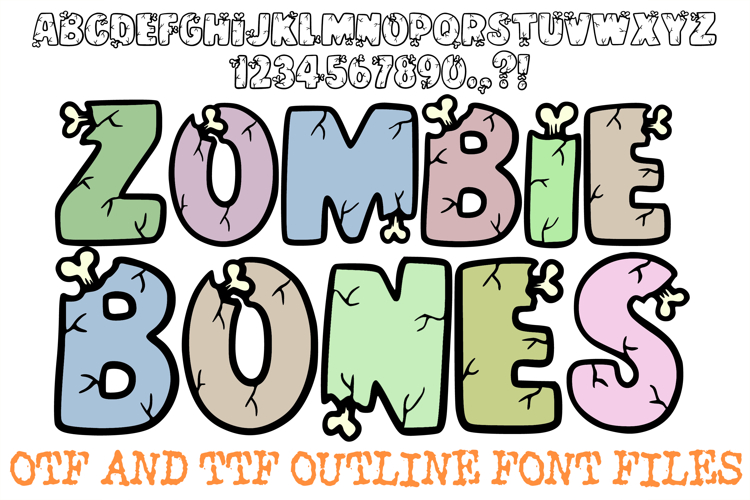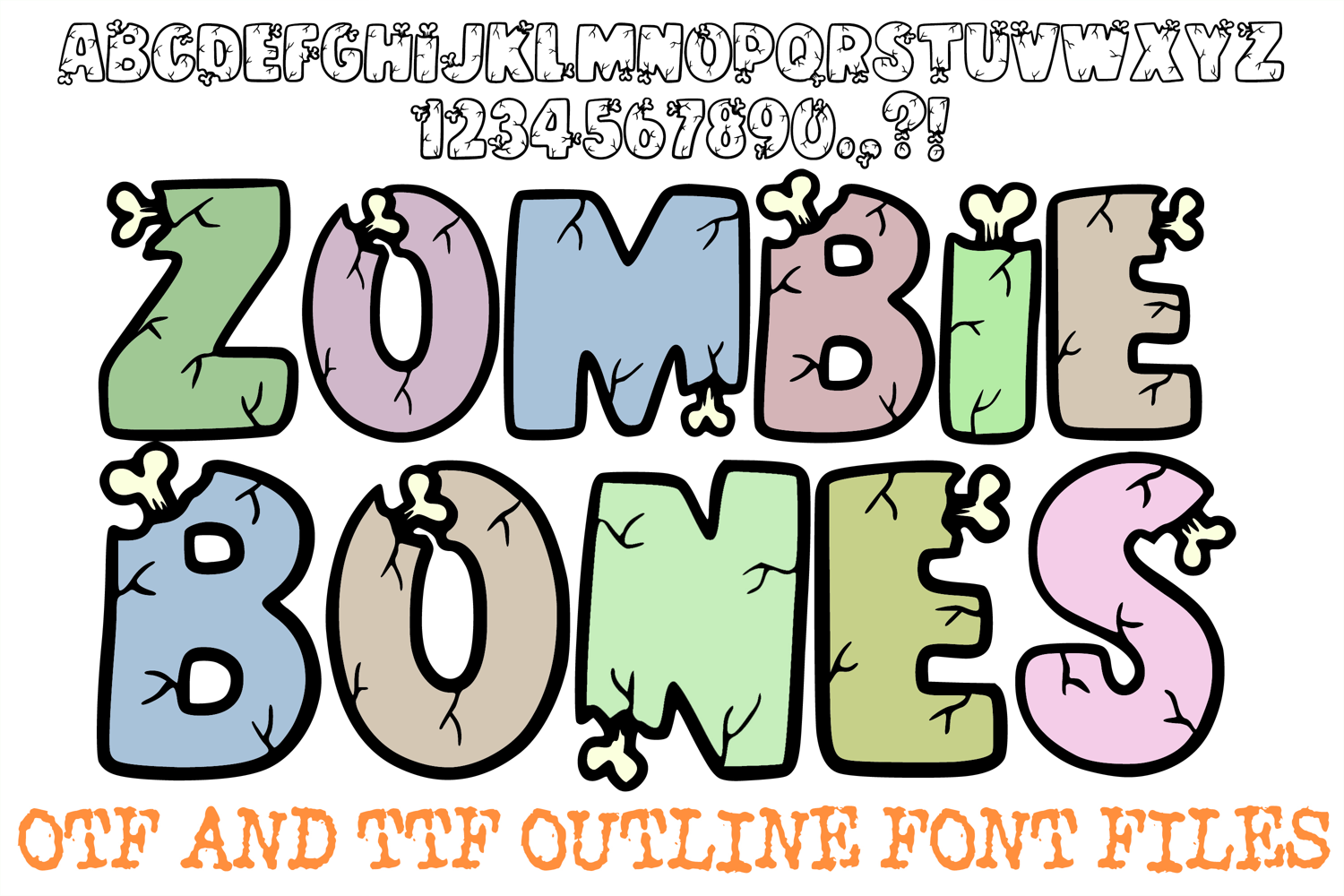
Zombie Bones Lettering Font Cartoon Halloween ABC OTF Type
The Zombie Bones Font is a playful yet macabre display typeface featuring thick, bubbly letterforms with small bone fragments protruding through the outlines. Characterized by "cracked" textures and a hand-drawn comic aesthetic, this font is an essential asset for designers working on Halloween party invitations, spooky children’s book titles, horror-themed sticker packs, and festive social media graphics.
The design creates a unique "undead" energy, as if bones are blooming from within the letters themselves. Whether you are building branding for a haunted attraction or designing seasonal apparel, this font provides a whimsical, "creepy-cute" vibe that is both legible and highly decorative.
Playful Horror Aesthetic: The combination of soft, rounded letters with sharp bone details strikes the perfect balance between spooky and fun.
Intricate Cracked Details: Subtle "fracture" lines within each character add a layer of tactile depth and a weathered, skeletal feel.
High-Visibility Headers: The bold, blocky construction ensures that your titles remain clear and impactful on posters, t-shirts, and digital banners.
Versatile Halloween Theme: The unique "bone-burst" concept makes it a standout choice for everything from graveyard-themed decor to undead-inspired logos.